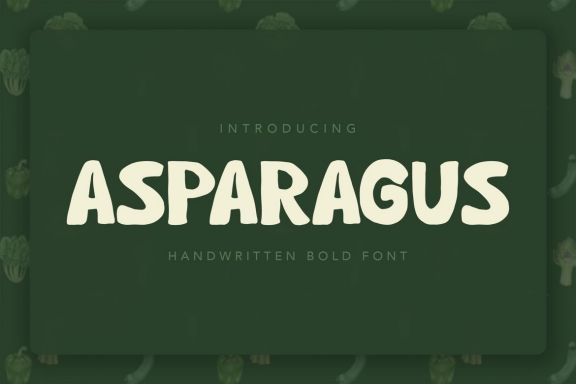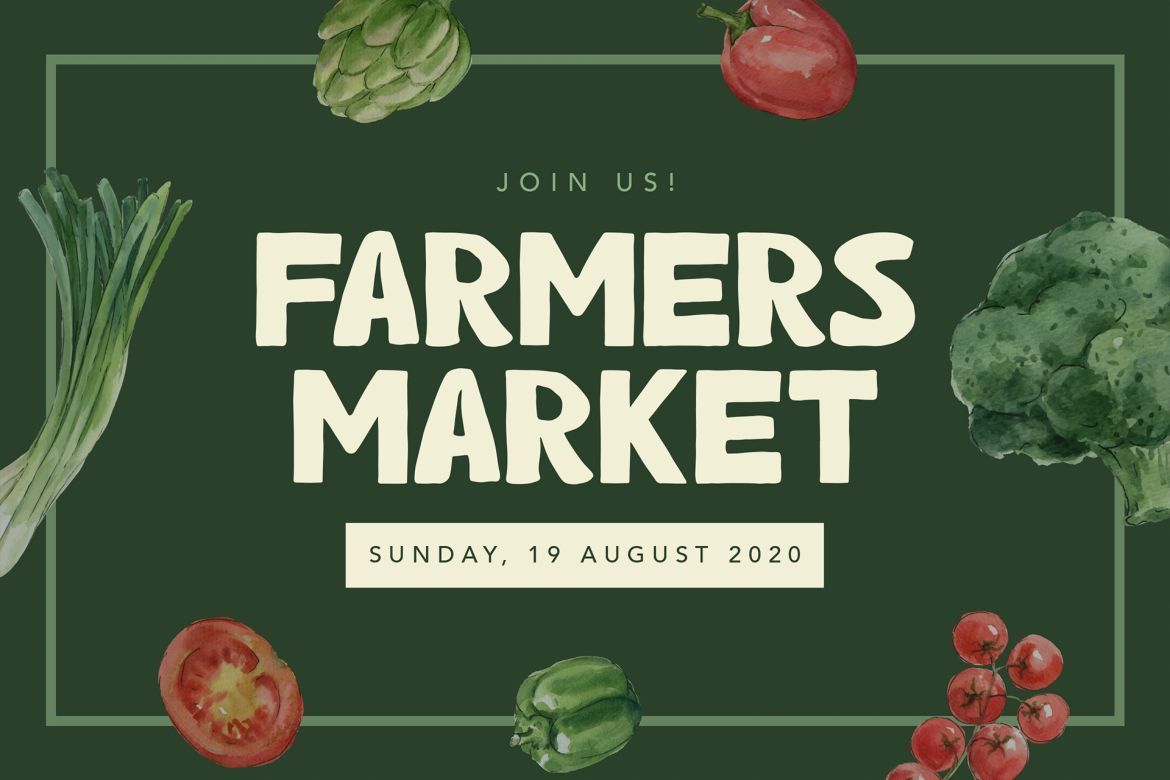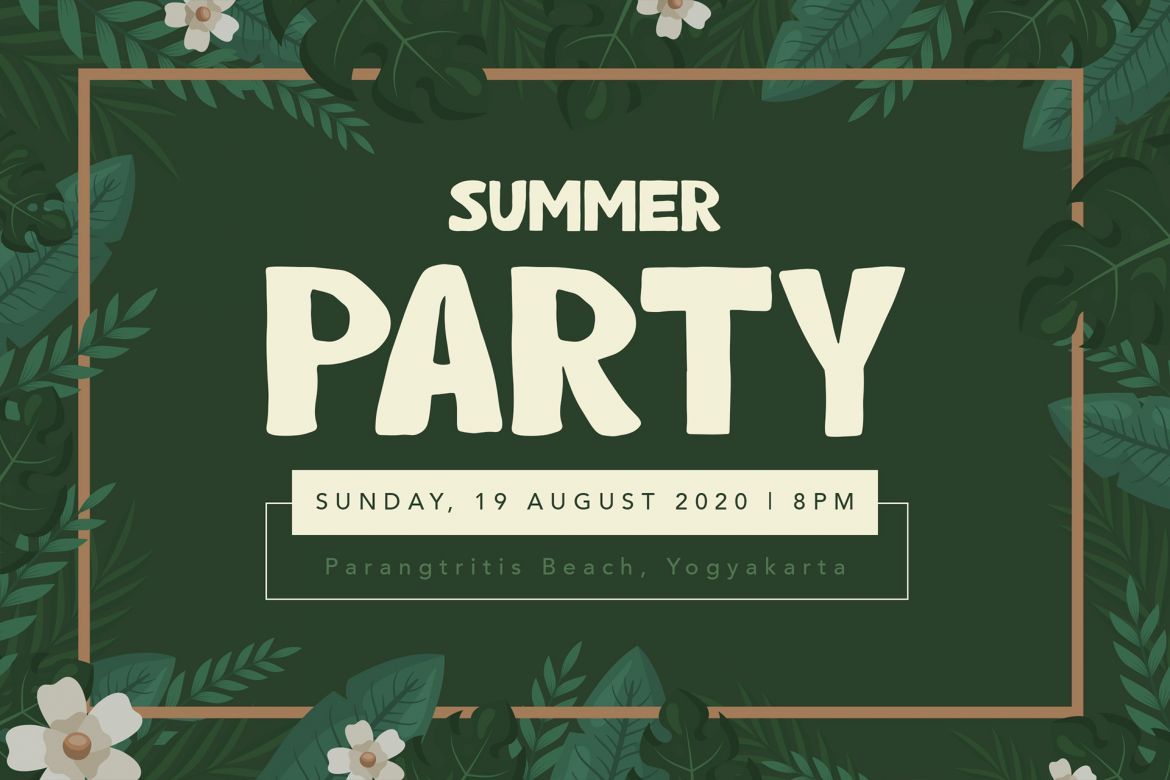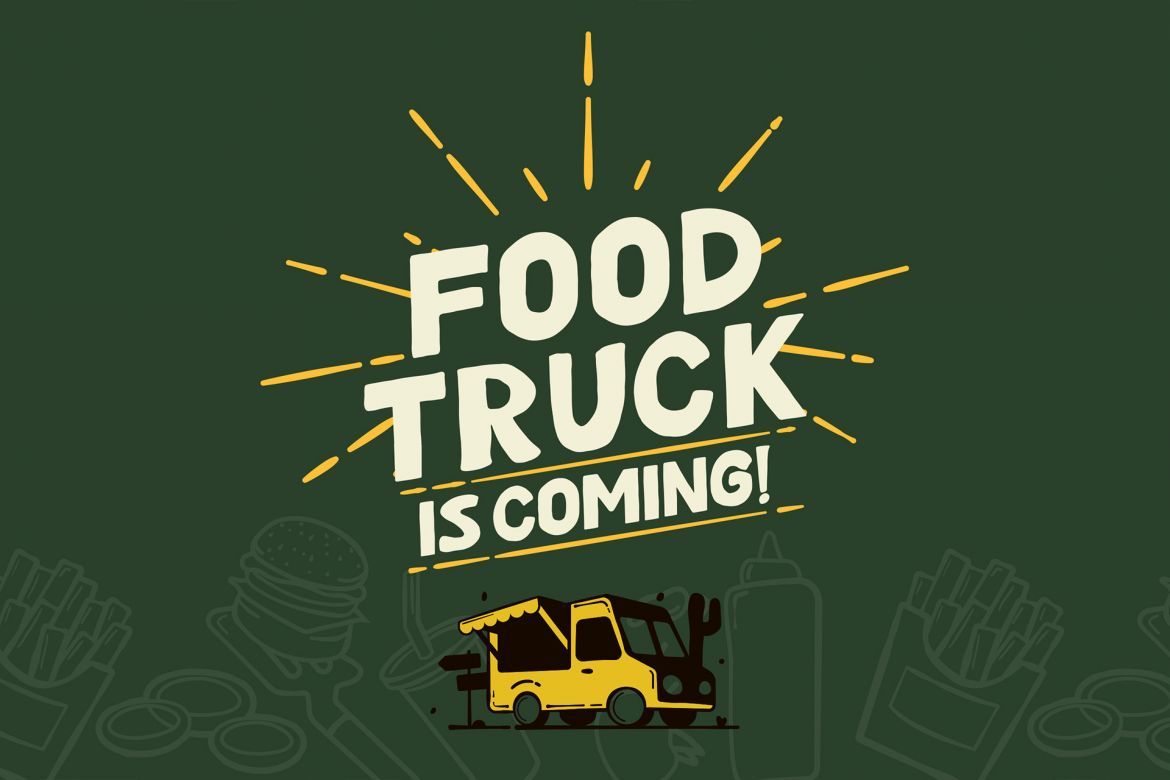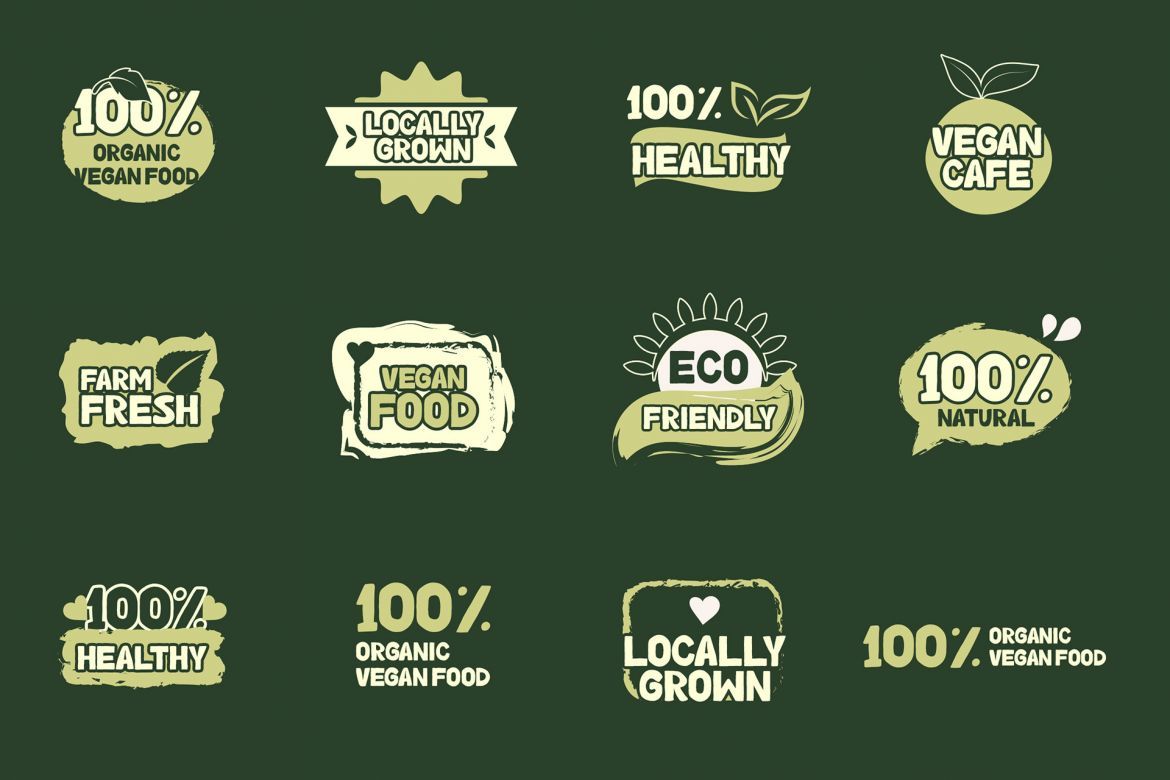
Asparagus Handwritten Font
Asparagus is a soft, bold and playful font type, it's a perfect fit for the modern food and nature theme, product packaging, tote bag, healthy food - or a stylish text overlay to any background image. It's also could be good for both fun and semi-formal text.
• all caps letters
• font type with fun, playful and bold character
• numbering and punctuation